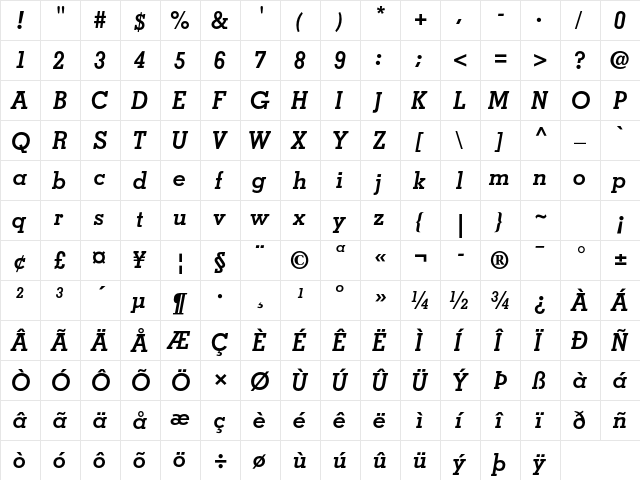
Memphis LT Std Bold Italic Font Preview
| Designer | Dr. Rudolf Wolf |
Design Context for Memphis LT Std Typeface
Memphis LT Std takes a measured approach to typography — its balanced proportions and neutral character make it a reliable workhorse for both digital and print work. The dynamic lean of this cut emphasises speed and emphasis in any layout. Its bold stroke weight gives it real presence on the page.